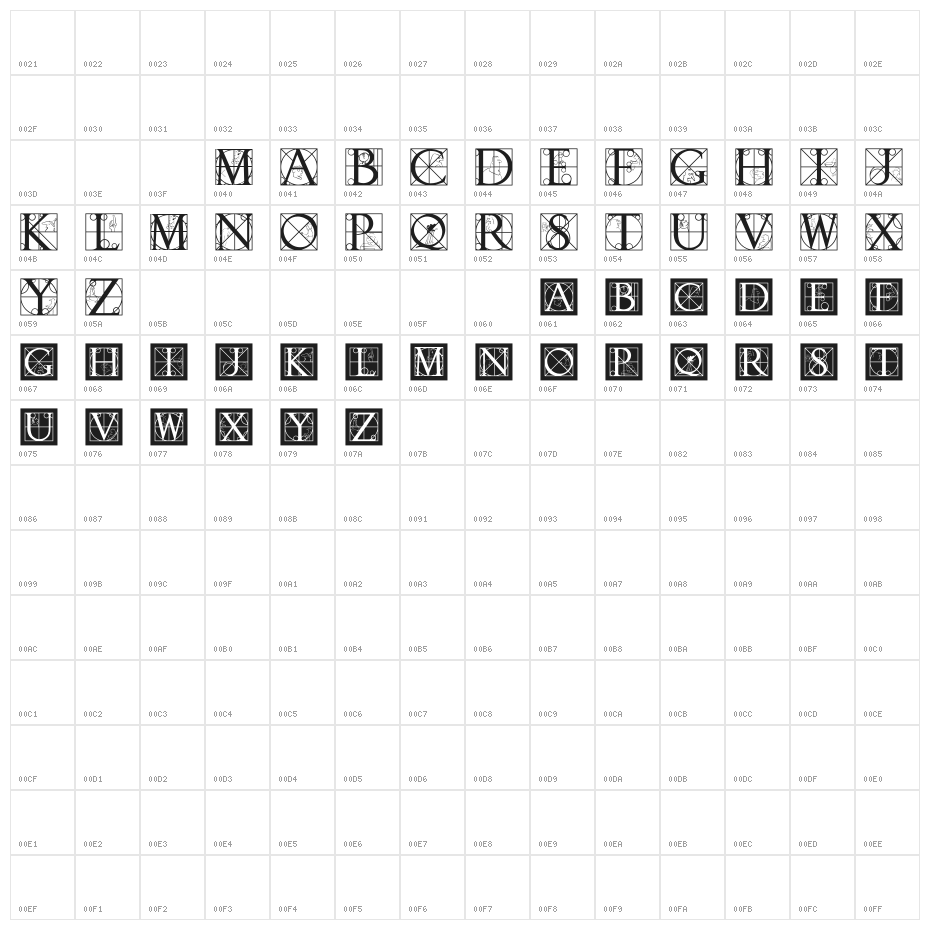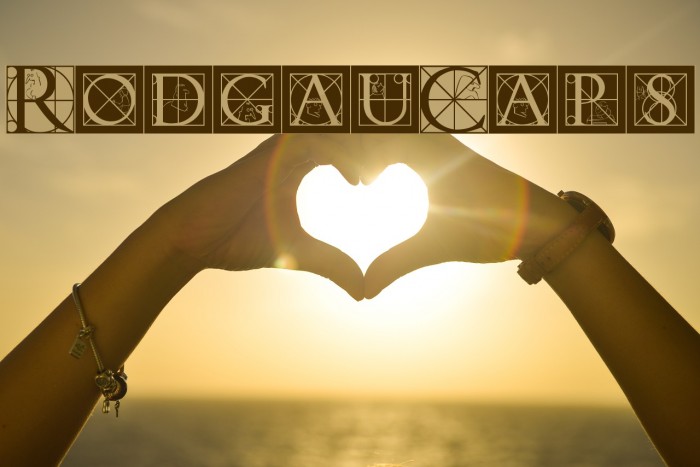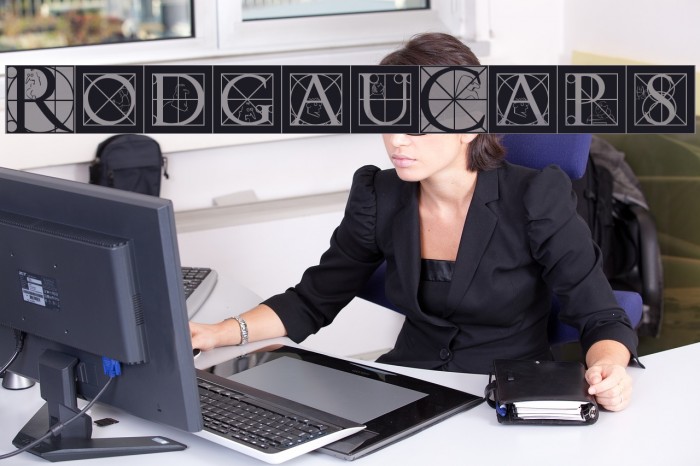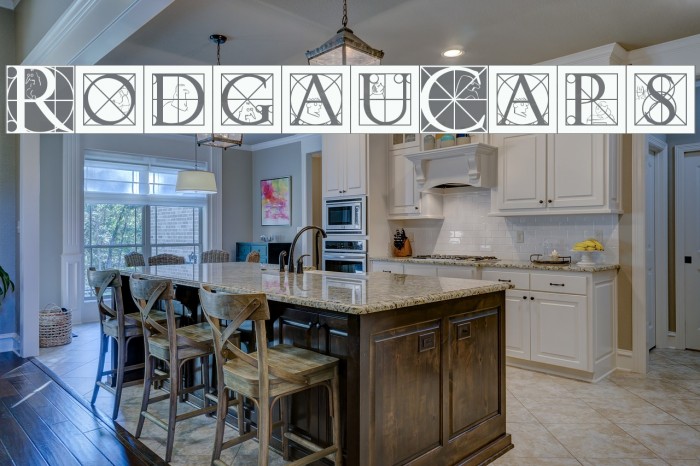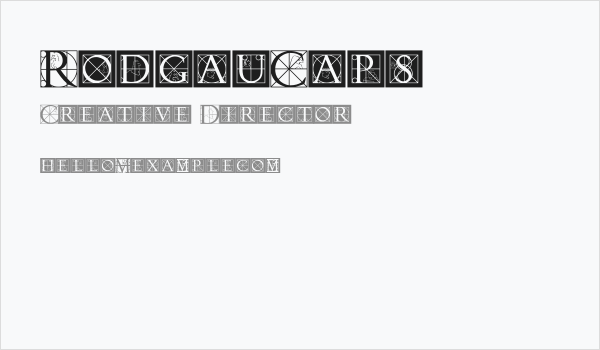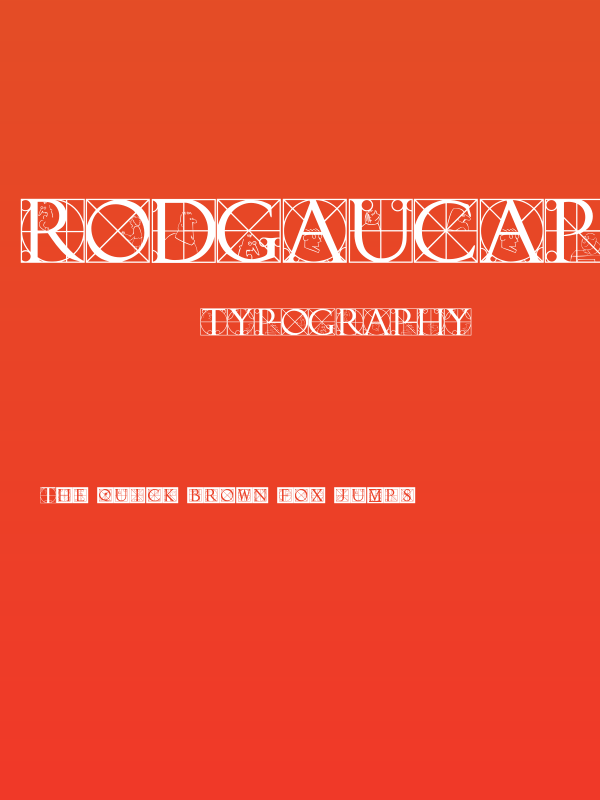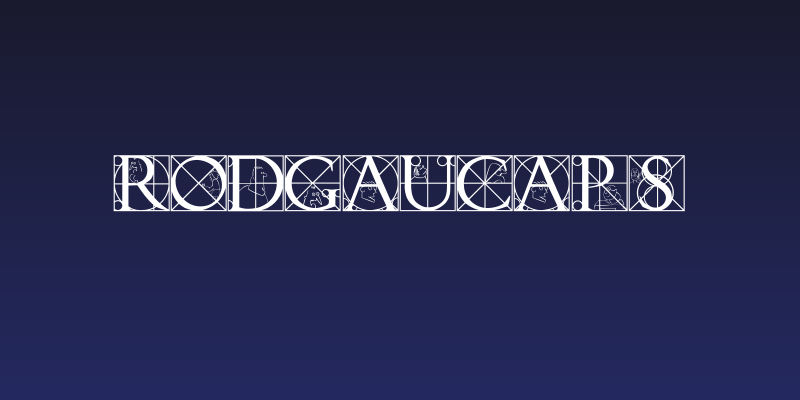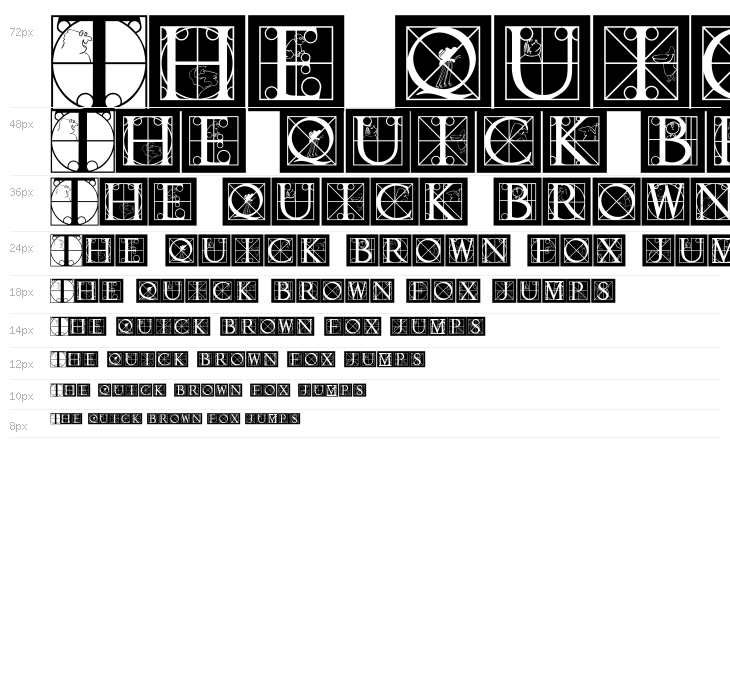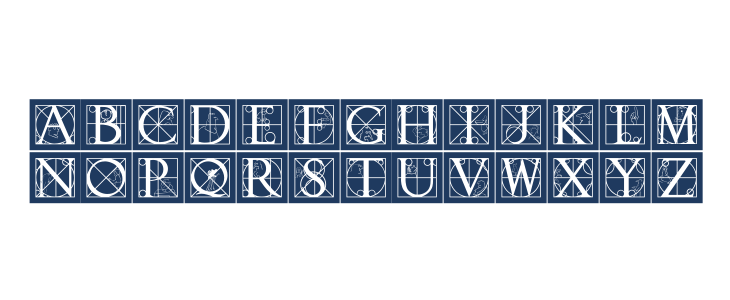
RodgauCaps Font
RodgauCaps Description
This font is a highly decorative and artistic typeface that features intricate geometric patterns and flourishes within each letterform. The uppercase letters are enclosed in square frames, adding a structured and ornamental appearance. The design incorporates a blend of circles, lines, and abstract shapes, creating a visually complex and engaging style. This font is ideal for projects that require a bold and artistic statement, as it draws attention with its unique and elaborate design. The overall aesthetic is reminiscent of Art Deco influences, with a modern twist that makes it suitable for contemporary applications.
| Overall Style | Modern, Art Deco |
| Proposed Projects | Ideal for use in branding, posters, album covers, and any design project that seeks to make a bold, artistic statement. |